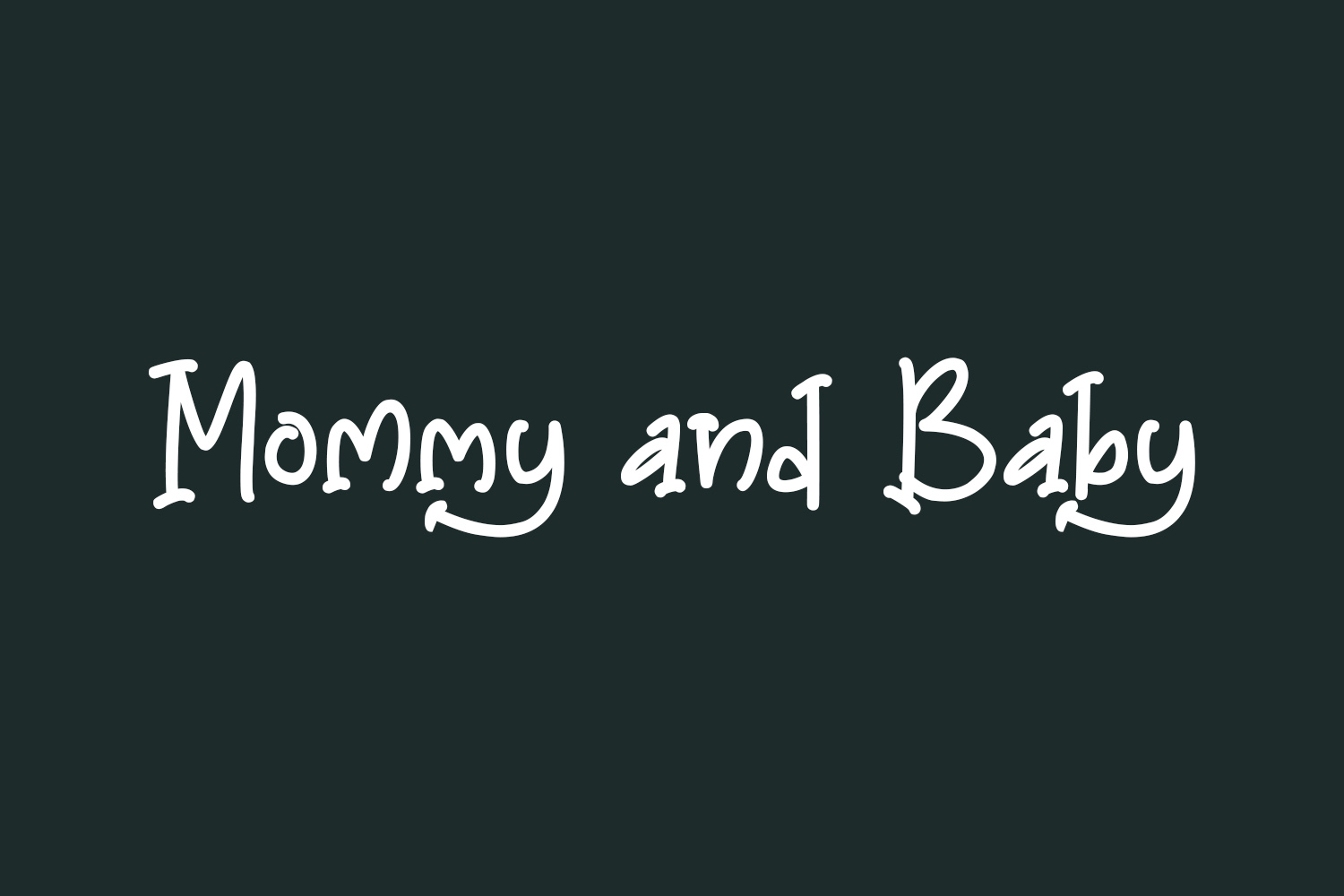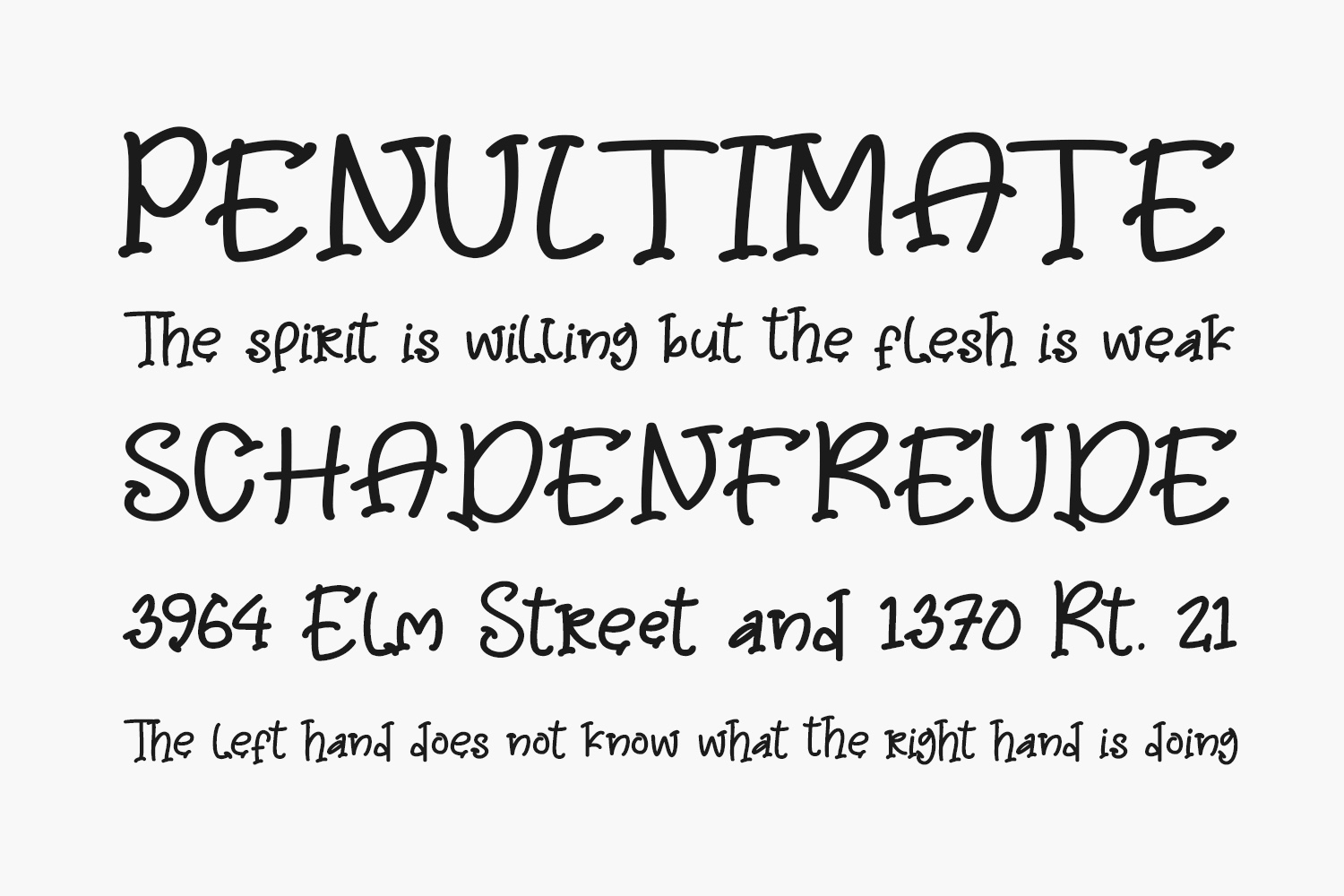
Mommy and Baby Free Font is a modern display font that is readable, fun and stylish. It is defined by smooth curves and is perfect for fashion branding or editorial designs. Add it confidently to your projects, and you will love the results. Whether you’re looking to add a touch of whimsy to your designs or simply want a font that stands out from the rest, Mommy and Baby Free Font is a great choice.